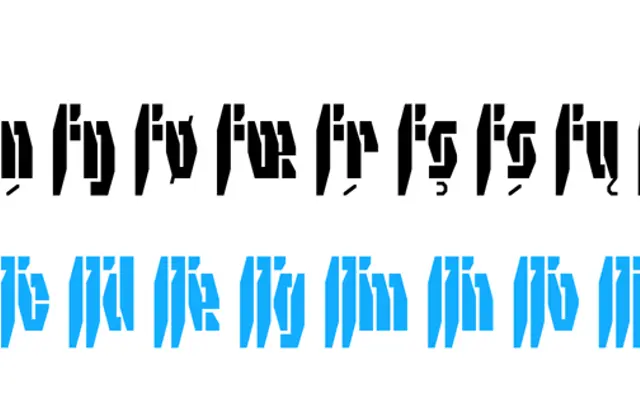
Rekall
Bold Monday · Shiva Nallaperumal · 2019
A futuristic stencil display family by Shiva Nallaperumal, built around an aggressive compressed logic that prioritises visual impact over legibility.
Originating as a logotype for a high-fashion streetwear brand, the design treats stencil cuts as a structural principle rather than an afterthought, producing spiky compressed letterforms that grow into chunky blocks at heavier weights. Consistent white space and x-height across all five weights allow mixed-style settings within a single word. Five decorated variants in Rekall Two, including the outline Factory and the striped Techno, extend the palette for posters, record sleeves and apparel graphics.
Rekall is an aggressive, compressed display family built on futuristic stencil logic rather than conventional letterform construction, making it firmly a display typeface with no body-text application intended.